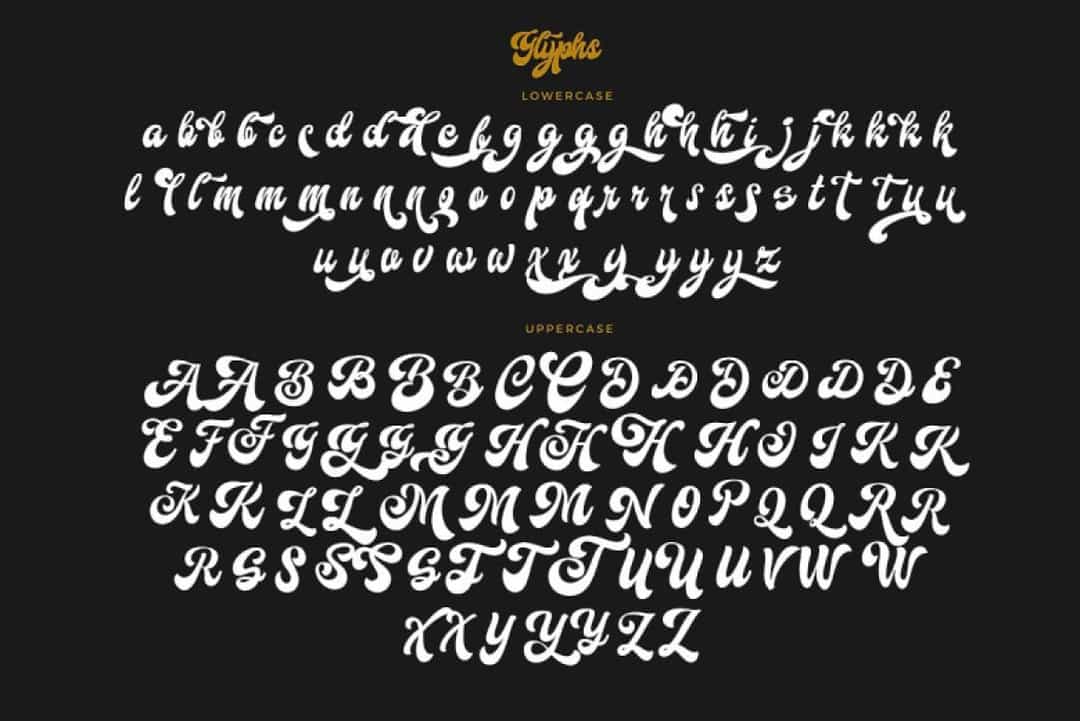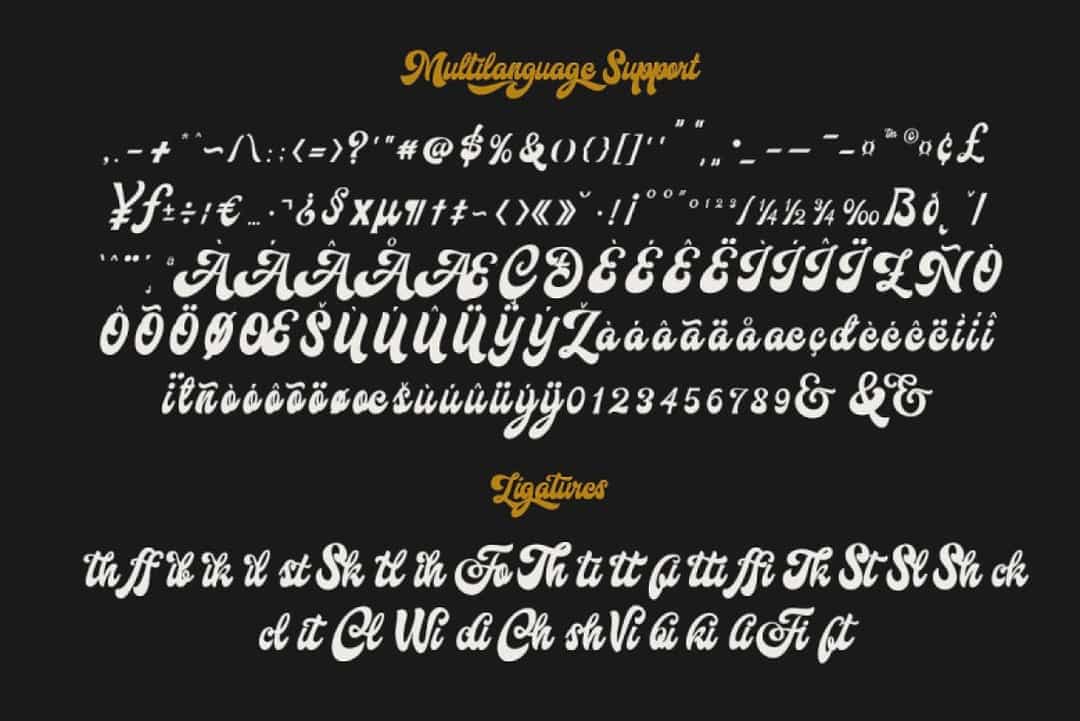
Hallway Font is an inspired combination of vintage script and contemporary styles that makes for the ideal font to use when applying vintage sports or classic sports branding, sign painting and labels – ideal for logos packaging product names labels vintage bars coffee shops and any other place with historical significance.